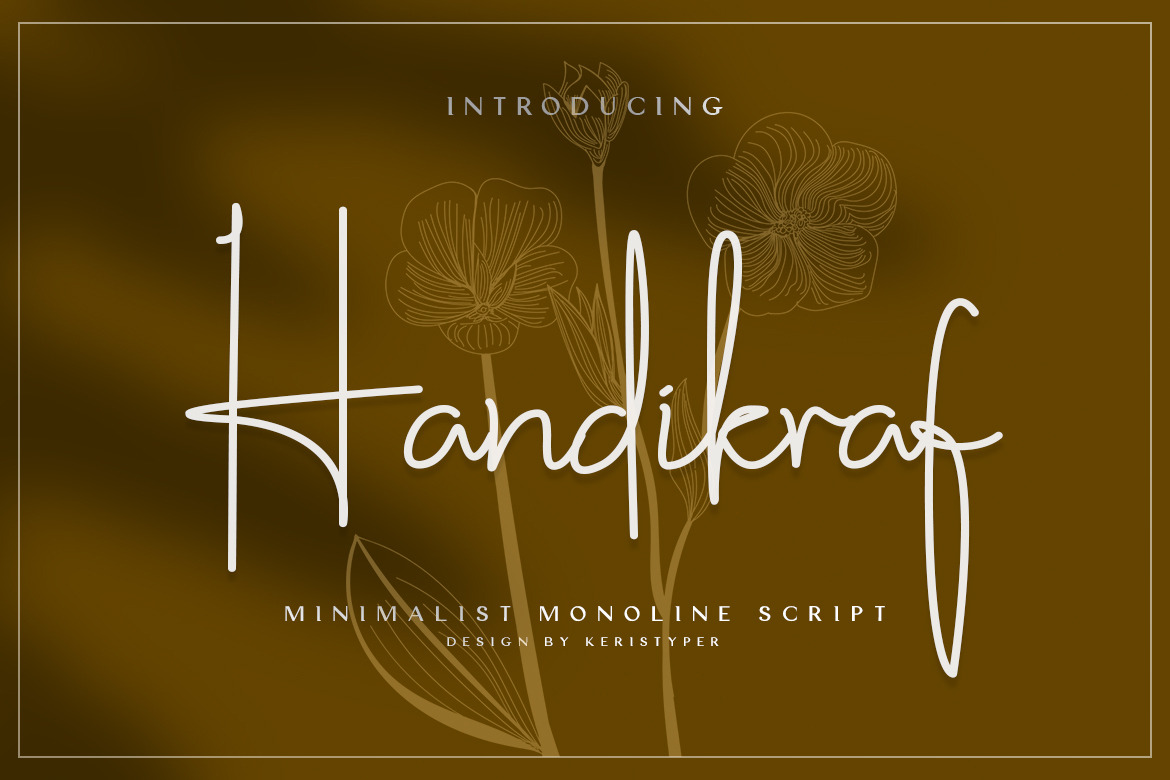
Handikraf Font
Handikraf Signature Script Font is charming and elegant Typeface. Created with an authentic, handwritten feel. It looks stunning on wedding invitations, thank you cards, quotes, greeting cards, logos, business cards and every other design which needs a handwritten touch.